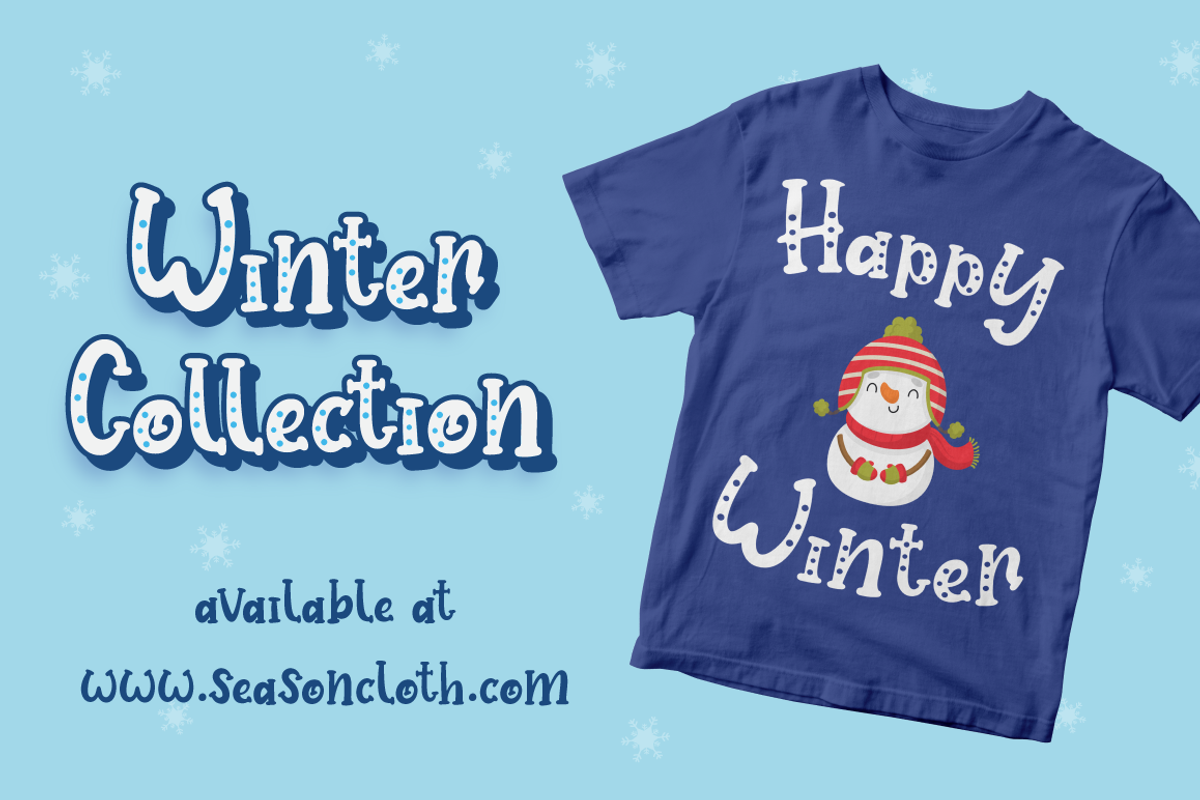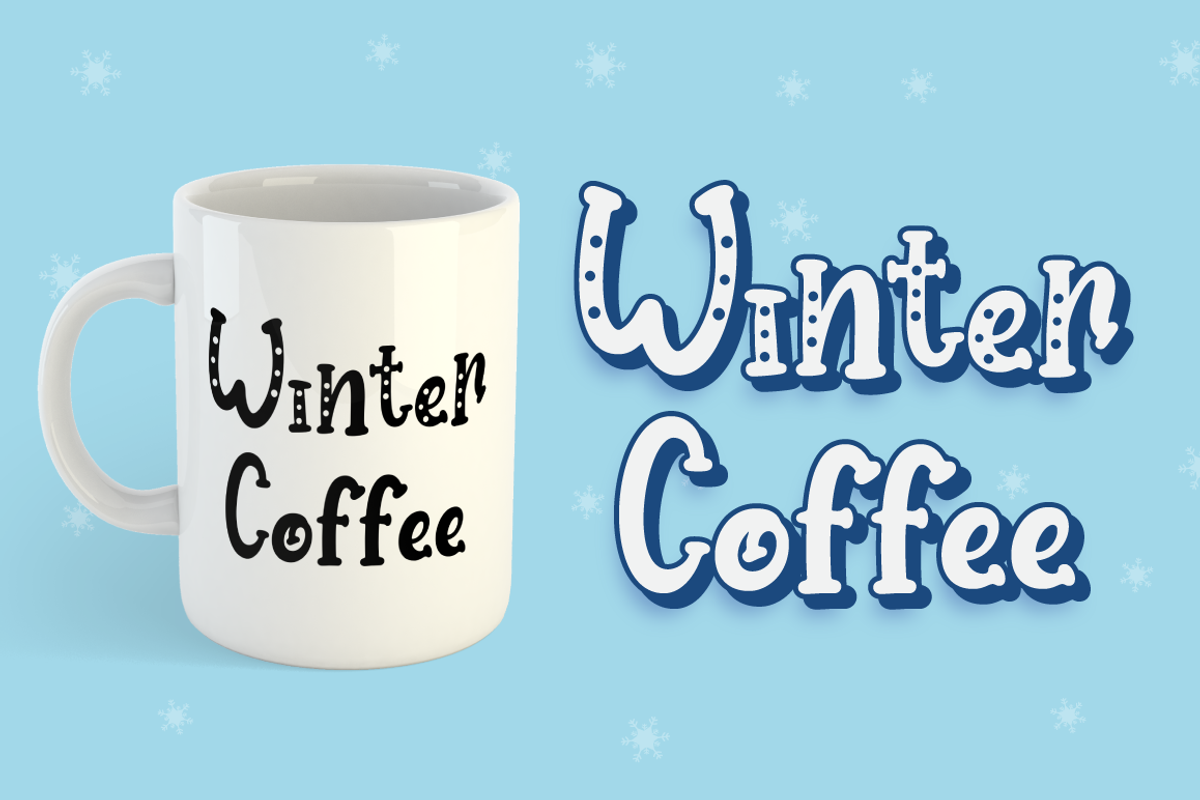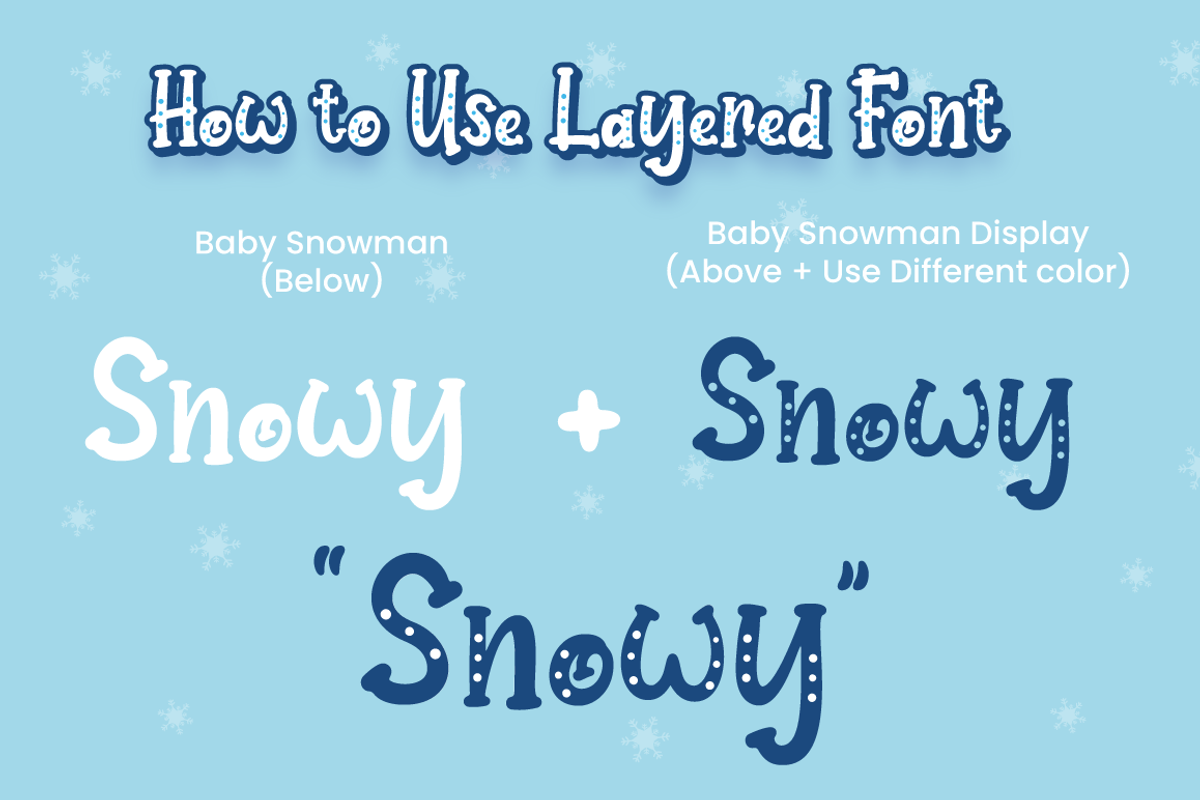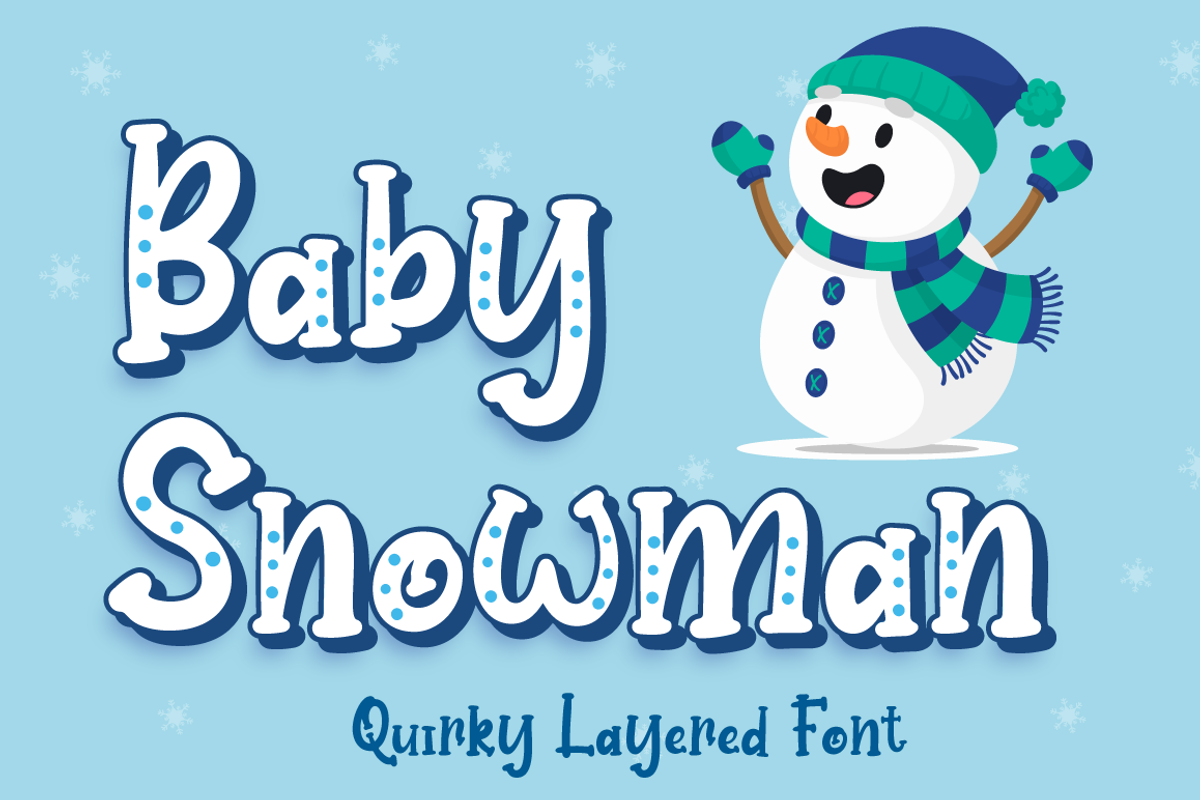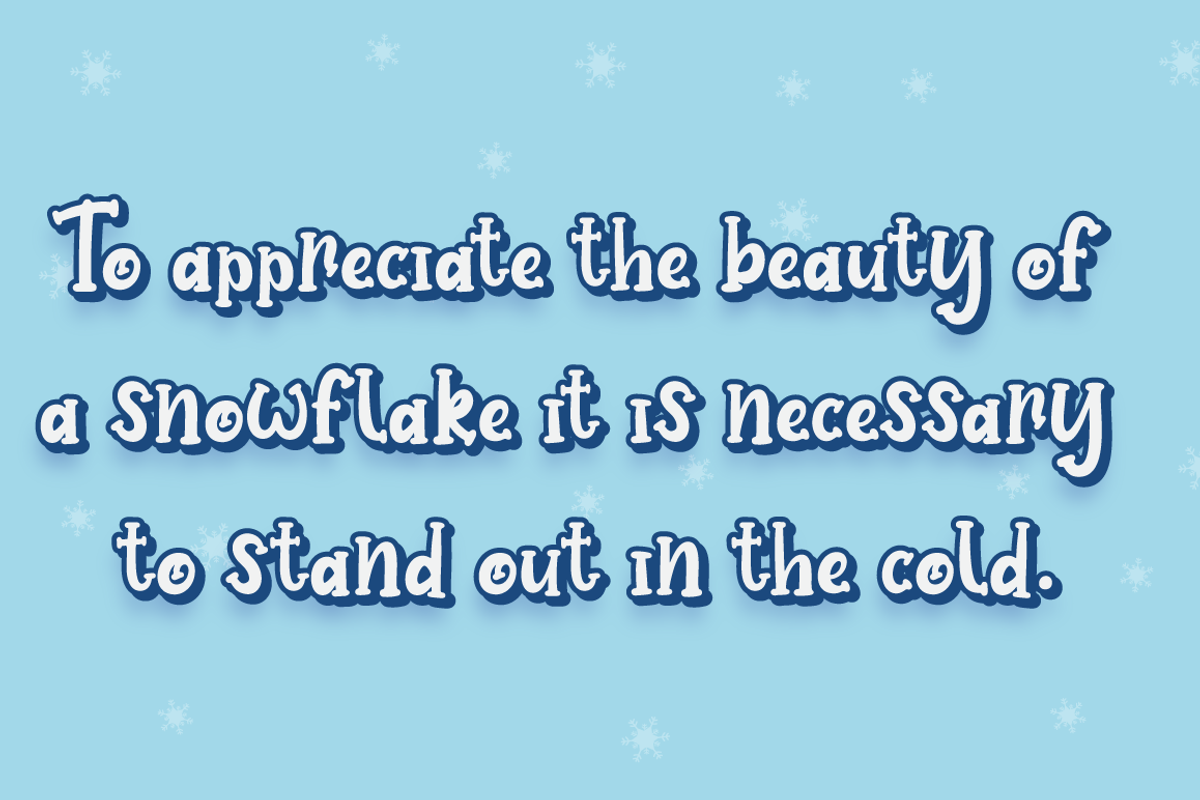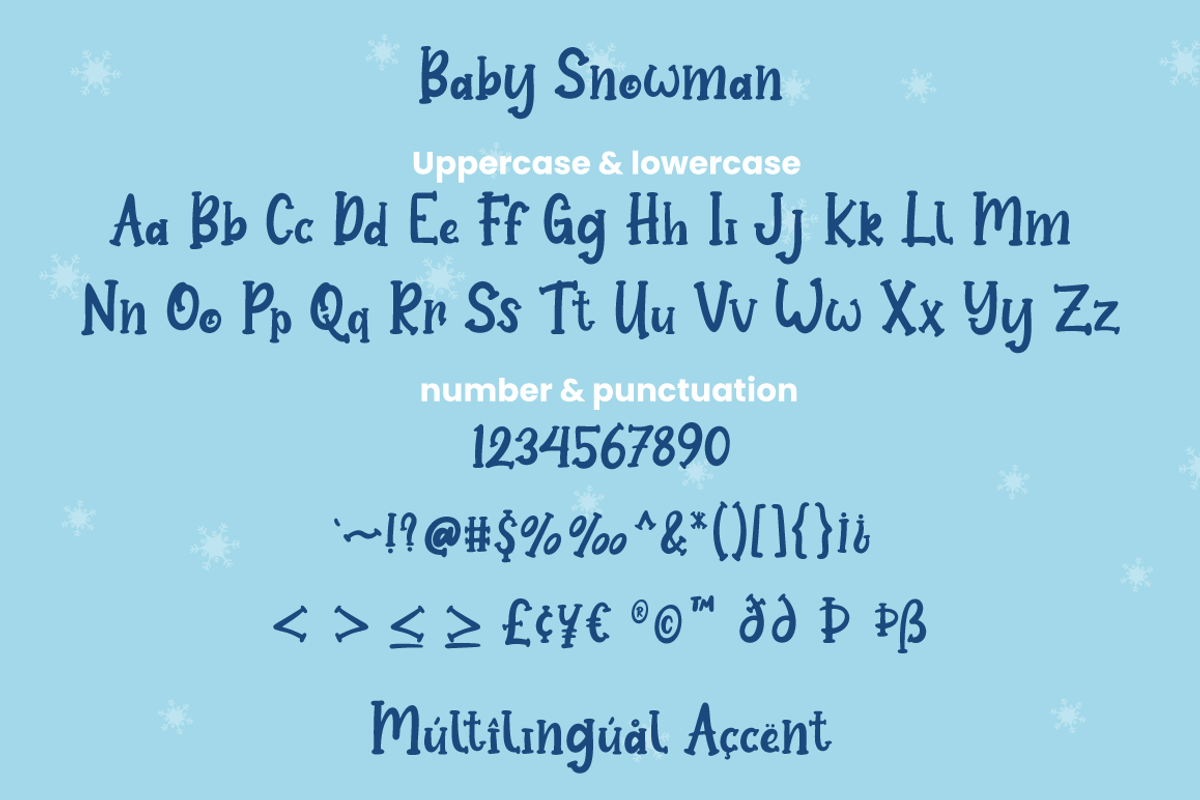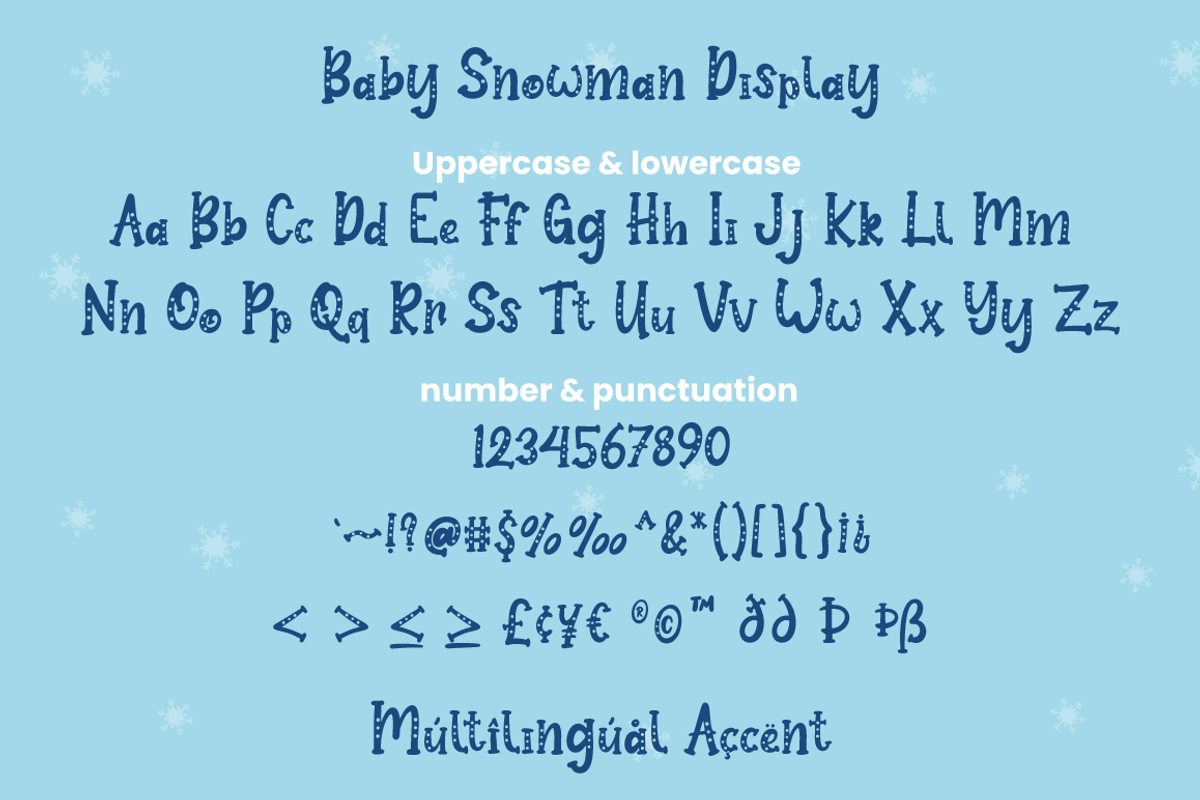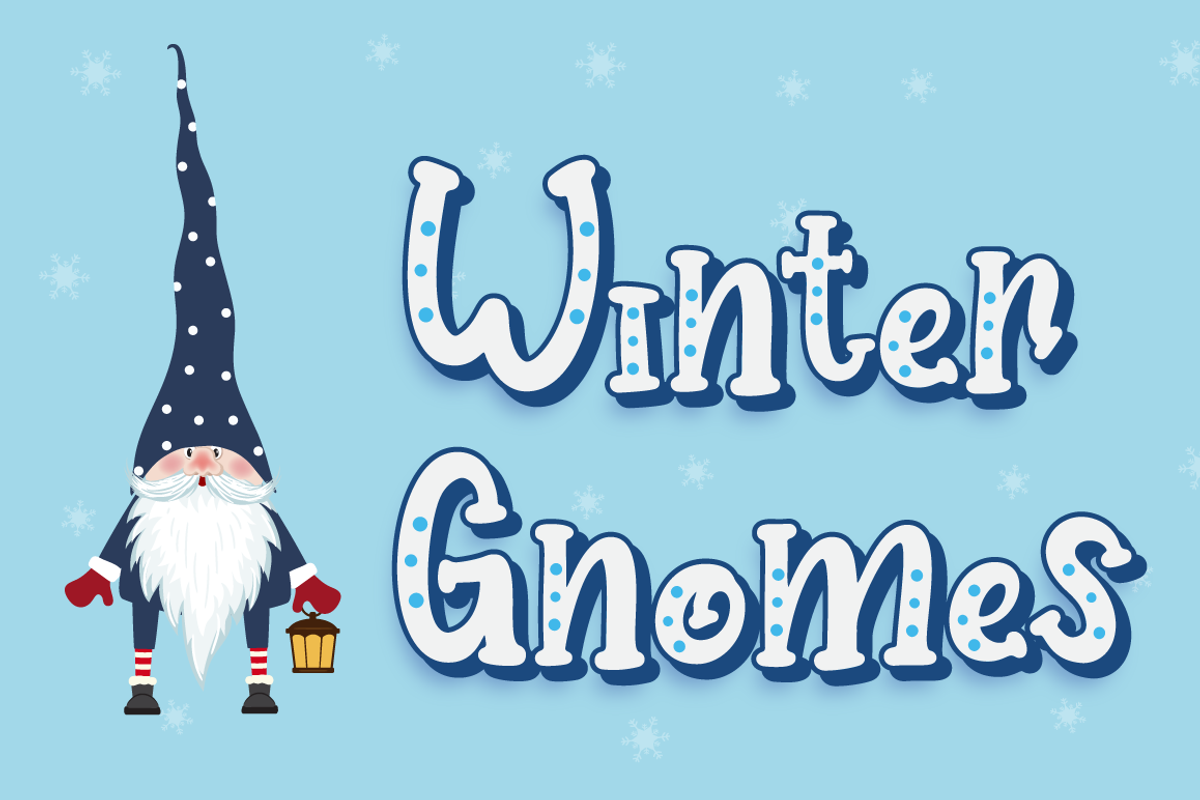
Baby Snowman - Display Font
Introducing Baby Snowman - Inspired by snow on handwritting, Baby Snowman perfect for winter events, making calligraphy merry christmas with snow around it. combine with Baby Snowman display to make amazing design!
Two style Font: Handwritting & Display
Baby Snowman is perfect for winter sale design, branding, logo, invitation, stationery, wedding, product packaging, merchandise, monogram, blog design, game titles, cute style design, Book/Cover Title and more.